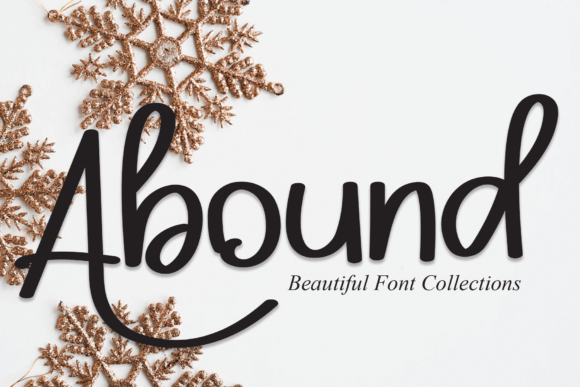
Introducing Abound Font, the captivating script font that exudes fun and friendliness, leaving an indelible mark on your creative pursuits. Crafted meticulously by the talented William Jhordy, Abound Font is not just a font; it's an artistic expression brimming with charm and personality.
Unleash your creativity with Abound Font, the perfect companion for your diverse design projects. Whether you're crafting heartfelt greeting cards, designing eye-catching presentations, or expressing your artistic vision, Abound Font effortlessly elevates your creations, leaving a lasting impression on your audience.
Immerse yourself in the delightful world of Abound Font, where imagination knows no bounds. Its enchanting curves and playful shapes evoke a sense of joy and warmth, captivating your readers and igniting their curiosity. Abound Font is the key to unlocking your creative potential, transforming ordinary words into captivating expressions of art.
With Abound Font as your trusted design partner, you'll embark on a journey of limitless possibilities. Whether you're creating enchanting digital designs or bringing life to physical crafts, Abound Font seamlessly adapts to your vision, becoming an indispensable tool in your creative arsenal.
Don't settle for ordinary fonts that blend into the background. Embrace the artistry of Abound Font, a font that commands attention and leaves a lasting impression. Let your designs radiate with charm and personality, capturing the hearts of your audience and leaving them yearning for more.
Abound Font is more than just a collection of letters; it's an invitation to unleash your creativity and embark on a journey where imagination knows no bounds. Seize this opportunity to elevate your designs and leave an indelible mark on the world. Embrace Abound Font today and unlock a world of endless creative possibilities.